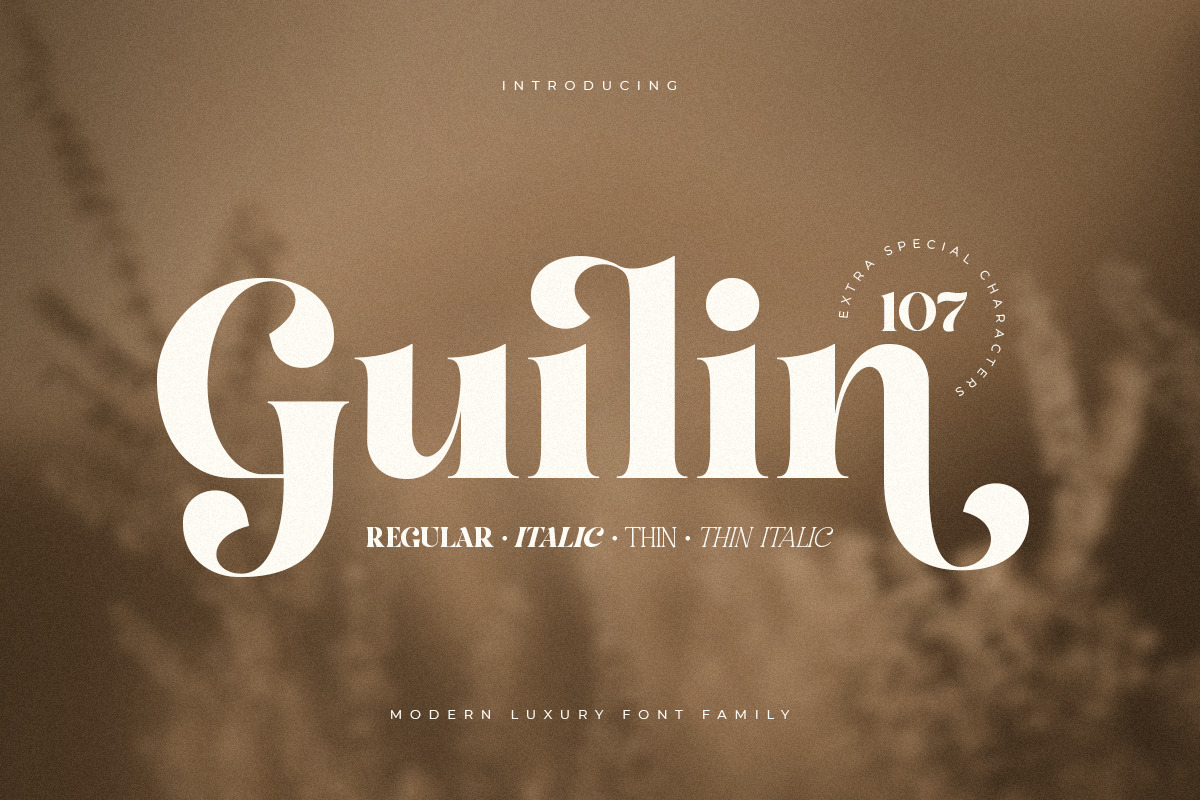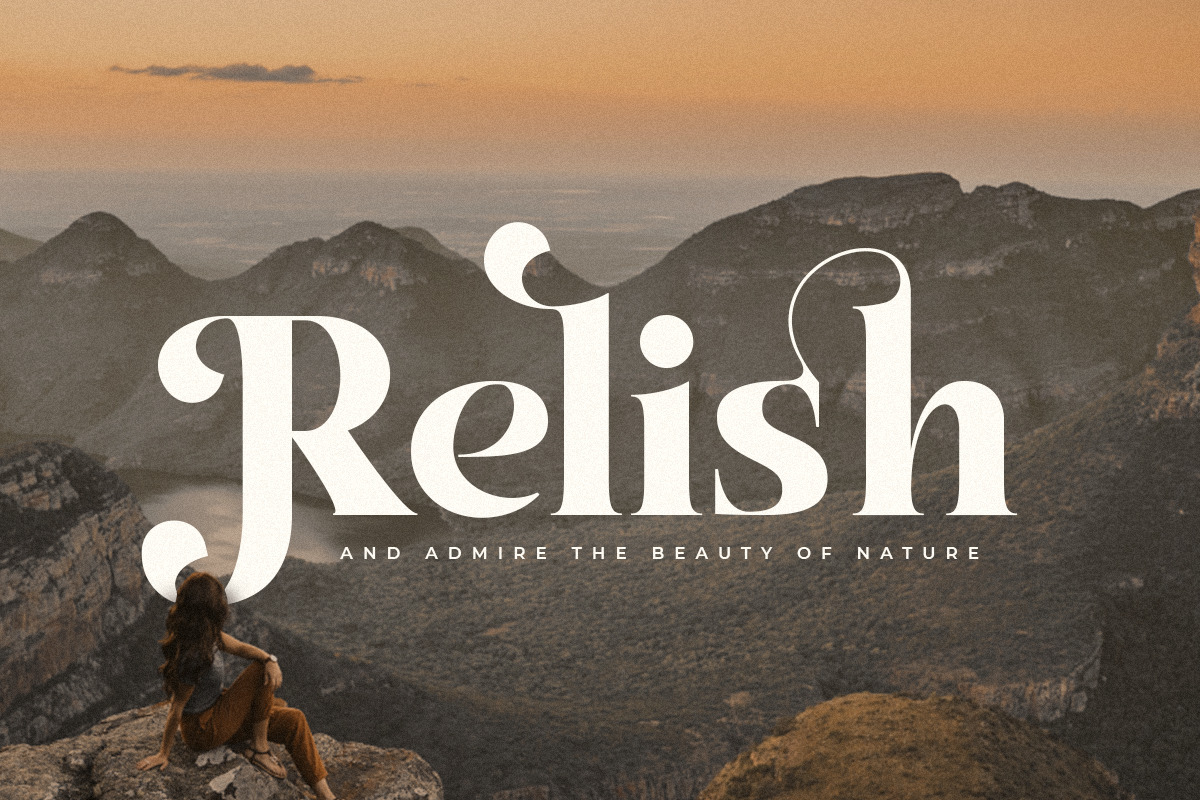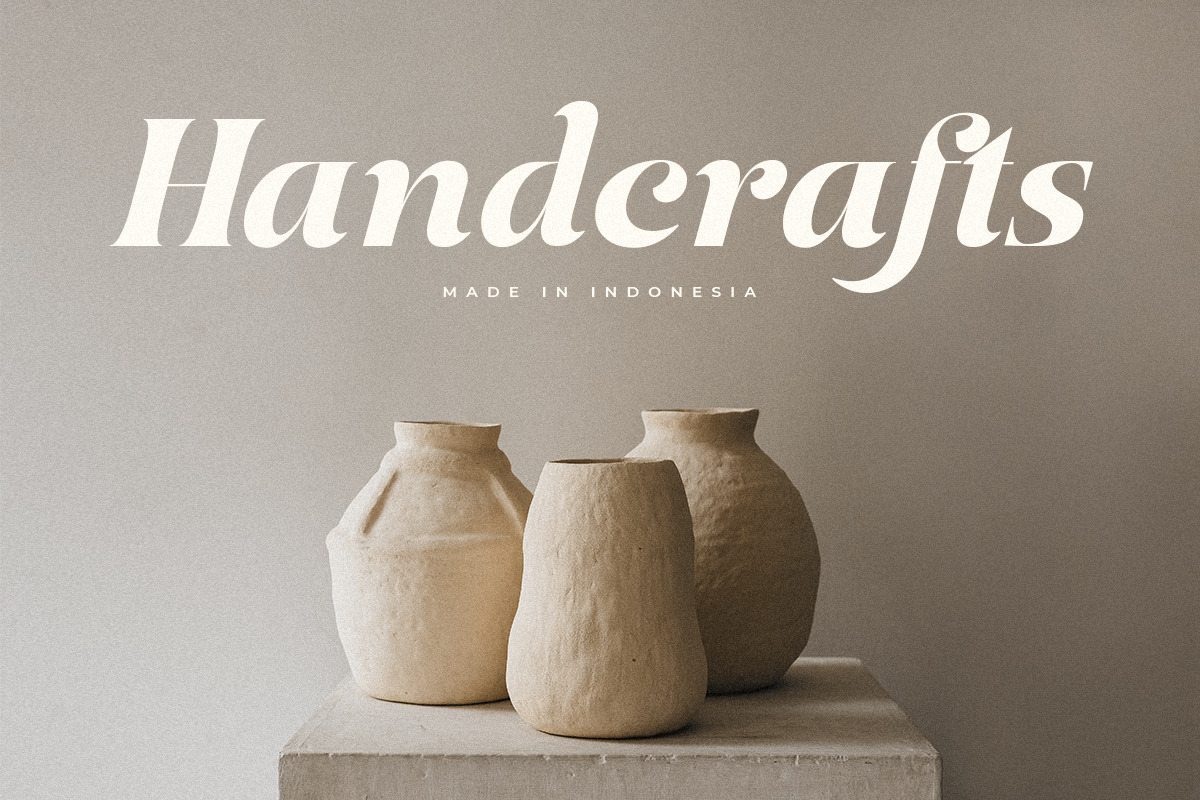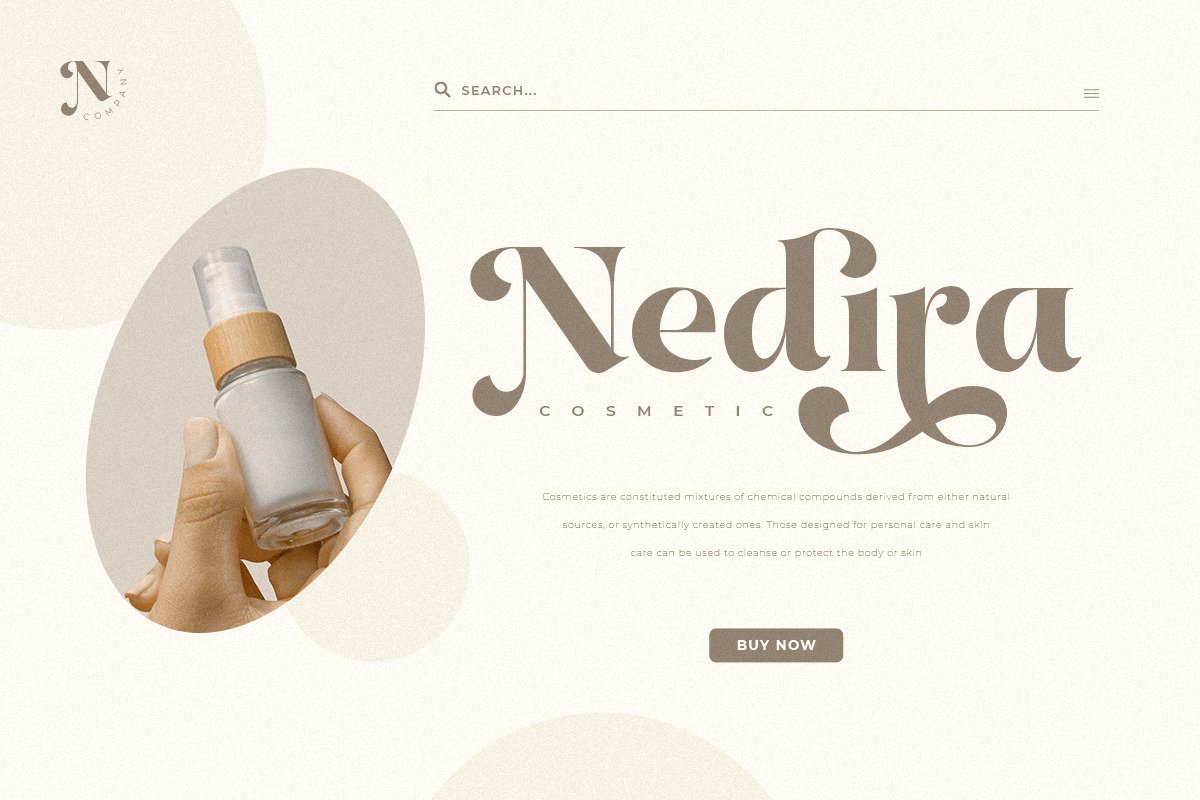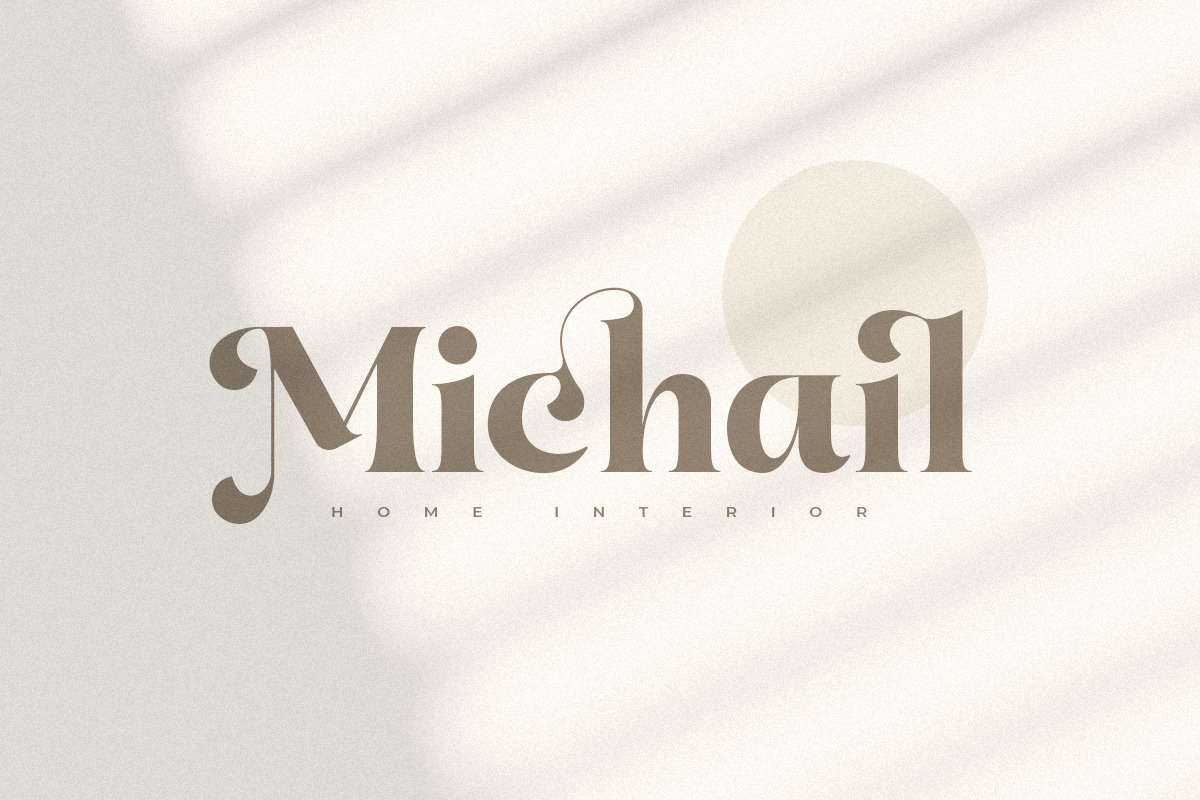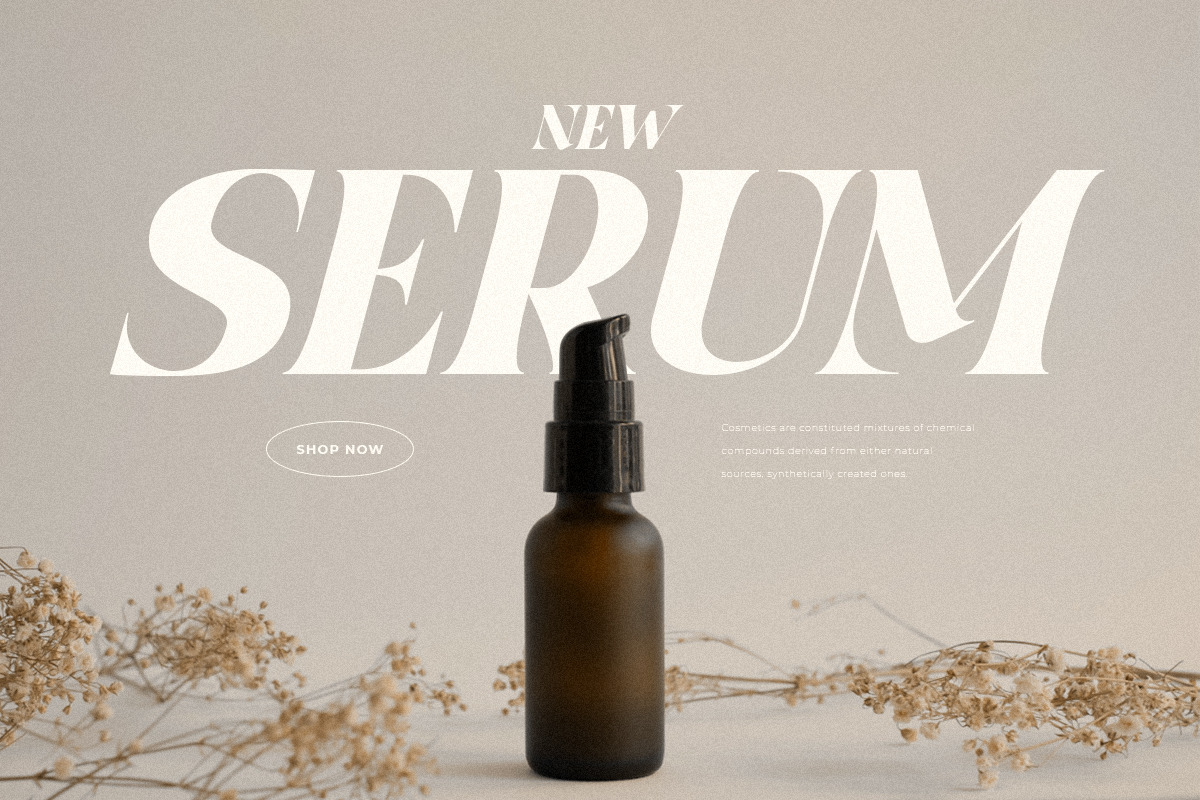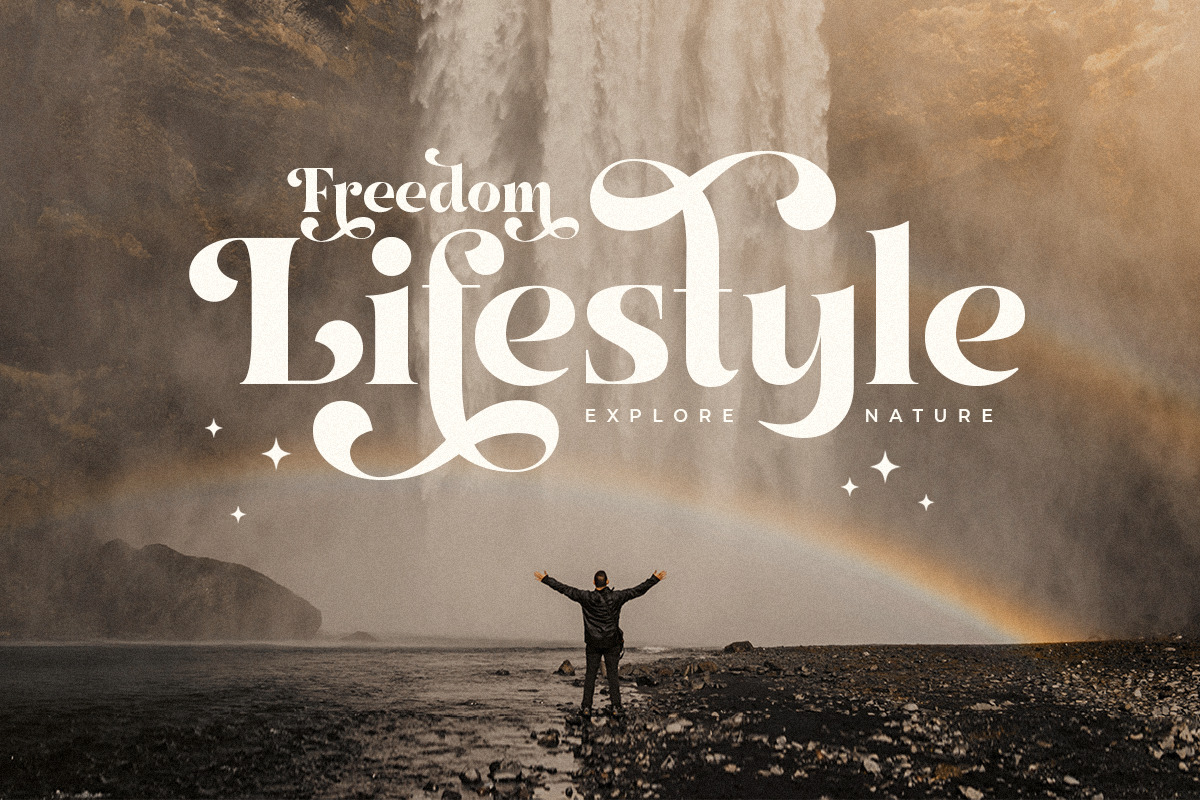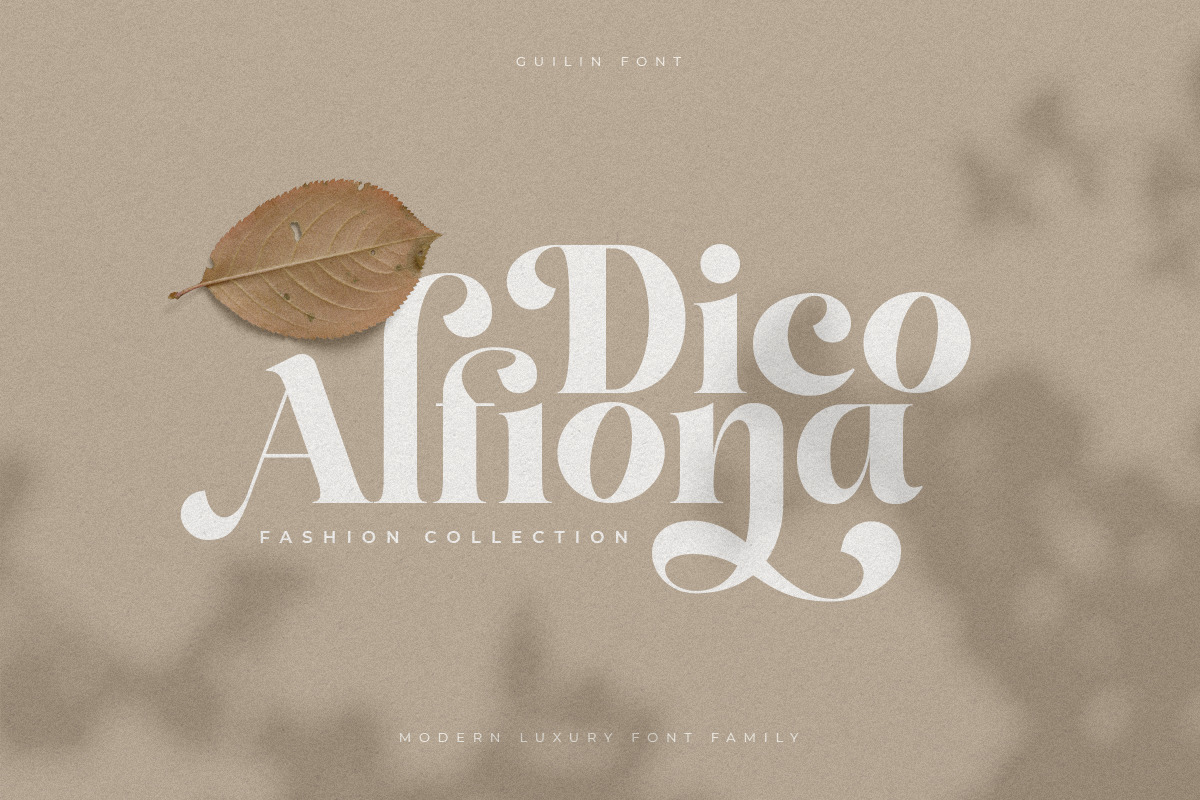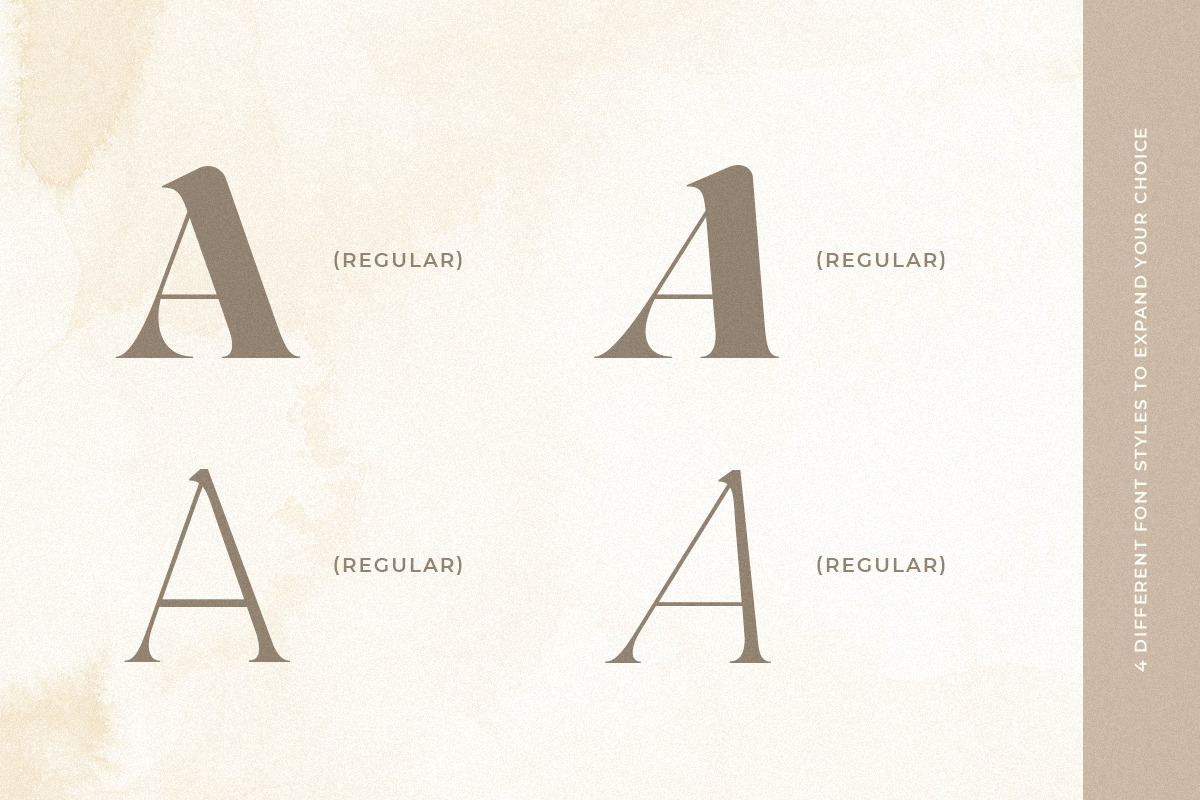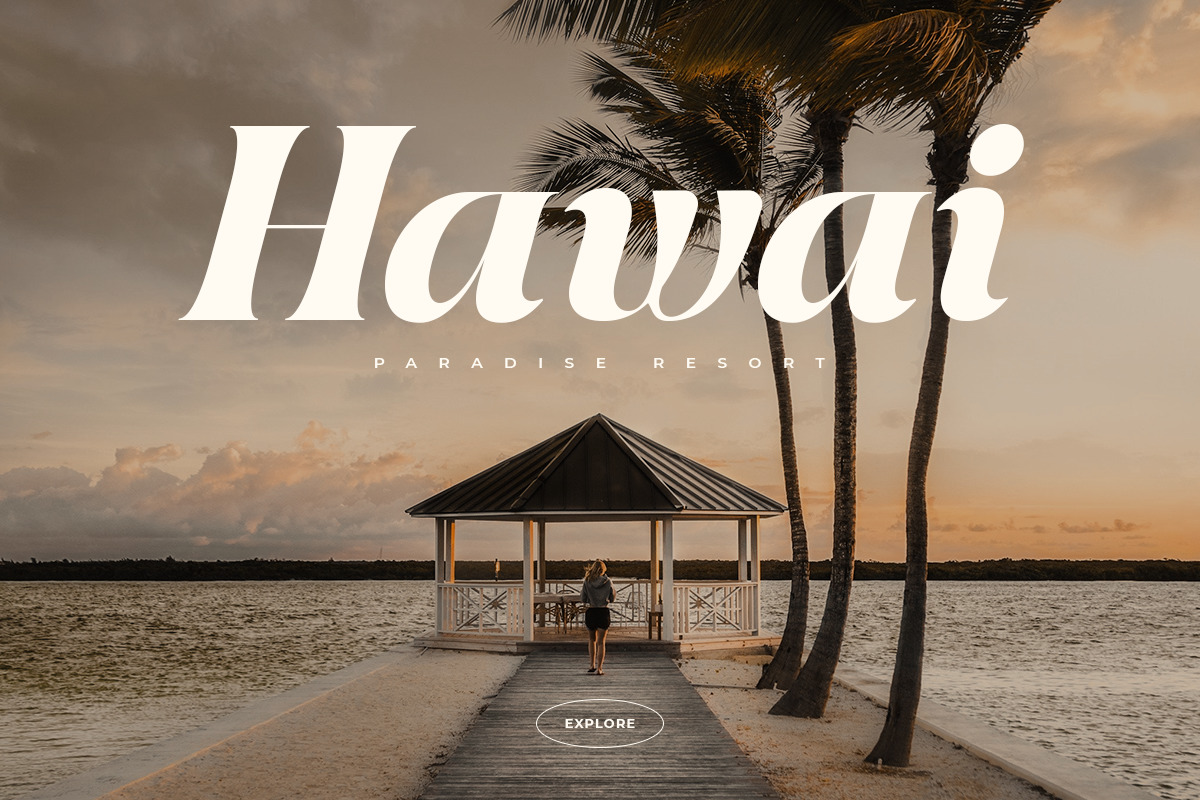
Guilin - Modern Luxury Font Family
An exclusive font tailored for luxury and cinematic branding, offering an elegant aesthetic to enhance your brand's allure. Crafted with unique alternates and ligatures, this font is designed to elevate the value of your brand. Whether you're a designer or a product owner seeking stylish and modern solutions, this font provides the perfect answer. Boasting an array of stylish and bohemian characters, it opens the door to endless creative possibilities, allowing you to create a myriad of variations for your unique and perfect designs.
- Ready with: Regular, Italic, Thin, Thin Italic
- Unique Characters with Alternate and Ligature Characters
- Character set A-Z
- Numerals & Punctuation
- Accented Characters (West Europe)